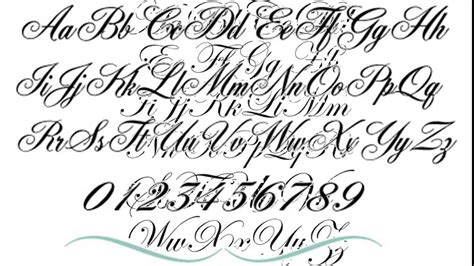
Tattoo Fonts Cursive Generator, The biggest change is the possibility to use the lettering generator plus. This fonts generator will keep generating a countless number of dissimilar fonts so you can pick any of your choice such as cursive font, tattoo font, calligraphy font, emojis, and so on.
Cursive Tattoos Fonts Letters Names Designs Tattoo Art
However, for different languages, cursive writing can mean differently, for example, for eastern asian languages like chinese, cursive writing focuses more on the formation and connectedness of strokes within an individual character while for latin,. Picking a font for your next tattoo is a very important decision. For memorial tattoos, cursive fonts are preferable choices for example a name. Old english fonts are also used a lot in tattoo designs because they have a distinguished look and evoke some medieval atmosphere.
This fonts generator will keep generating a countless number of dissimilar fonts so you can pick any of your choice such as cursive font, tattoo font, calligraphy font, emojis, and so on. Cursive fonts mimic the style of human penmanship where the letters flow together. The biggest change is the possibility to use the lettering generator plus. Cursive fonts mimic.
Cursive fonts mimic the style of human penmanship where the letters flow together. Many schools even stopped teaching cursive (it is thankfully making a comeback, however). There is no app (at least in our knowledge) with an inbuilt text formatting option to change the fonts to look like cursive fonts. Every font is free to download! Old english fonts are.